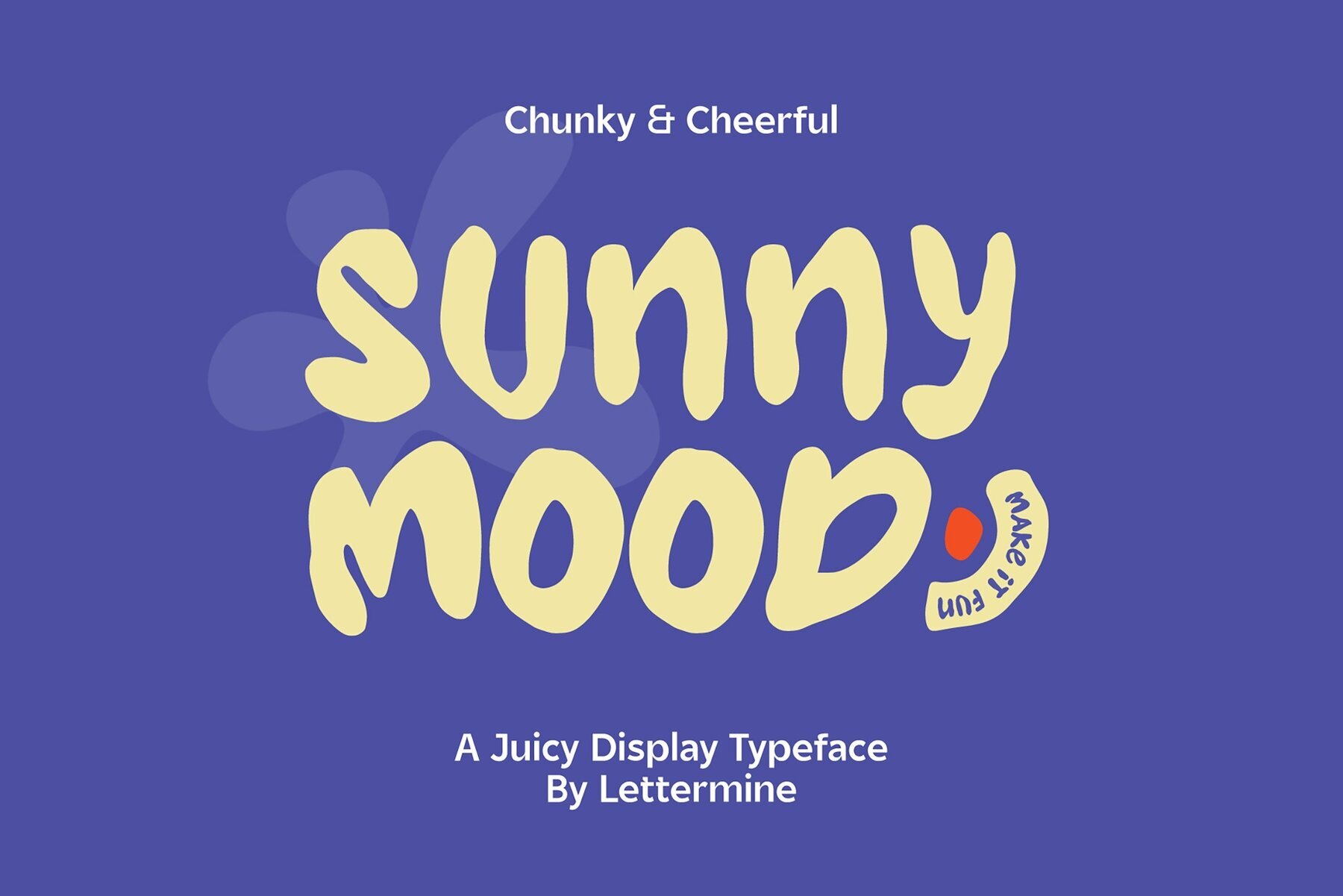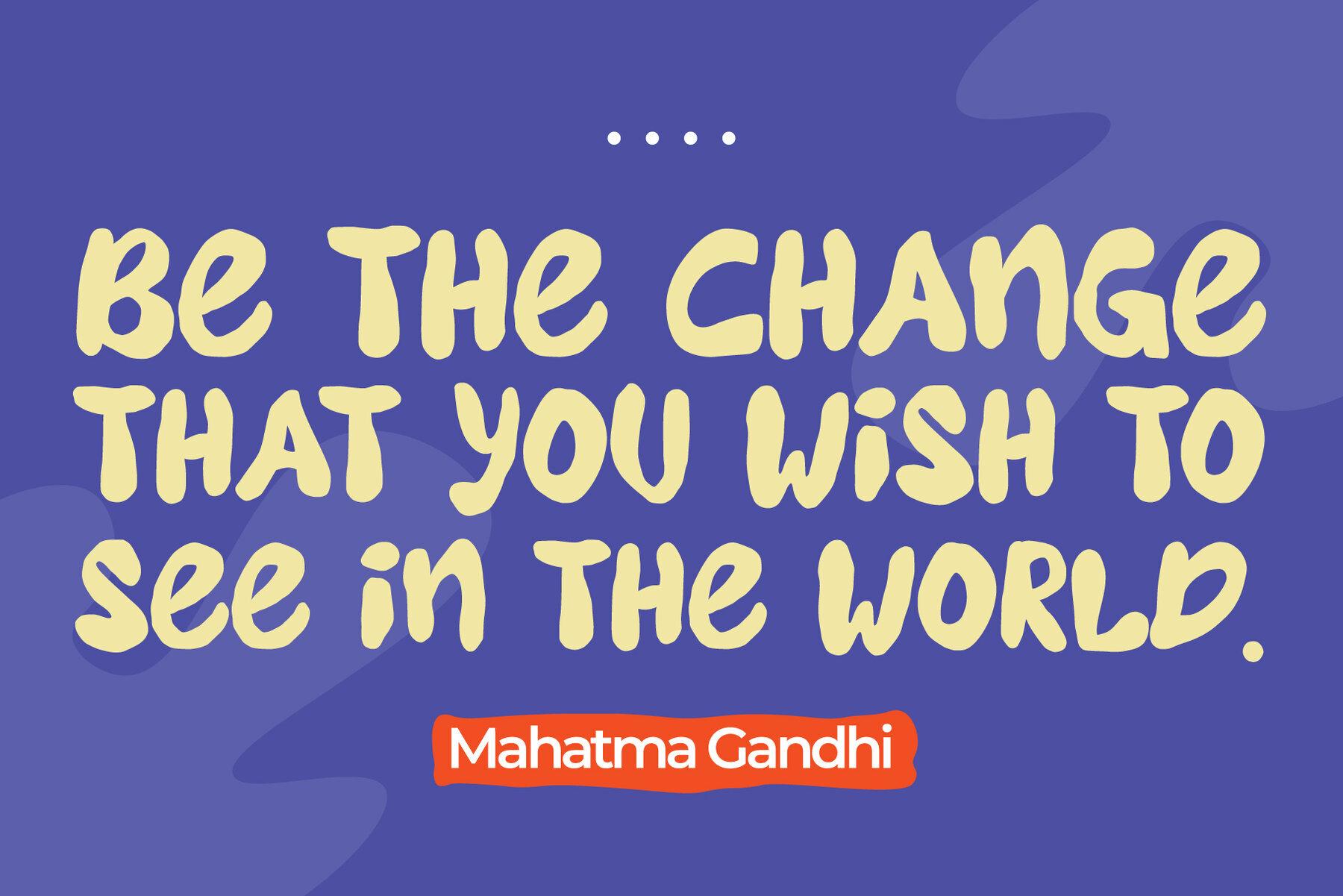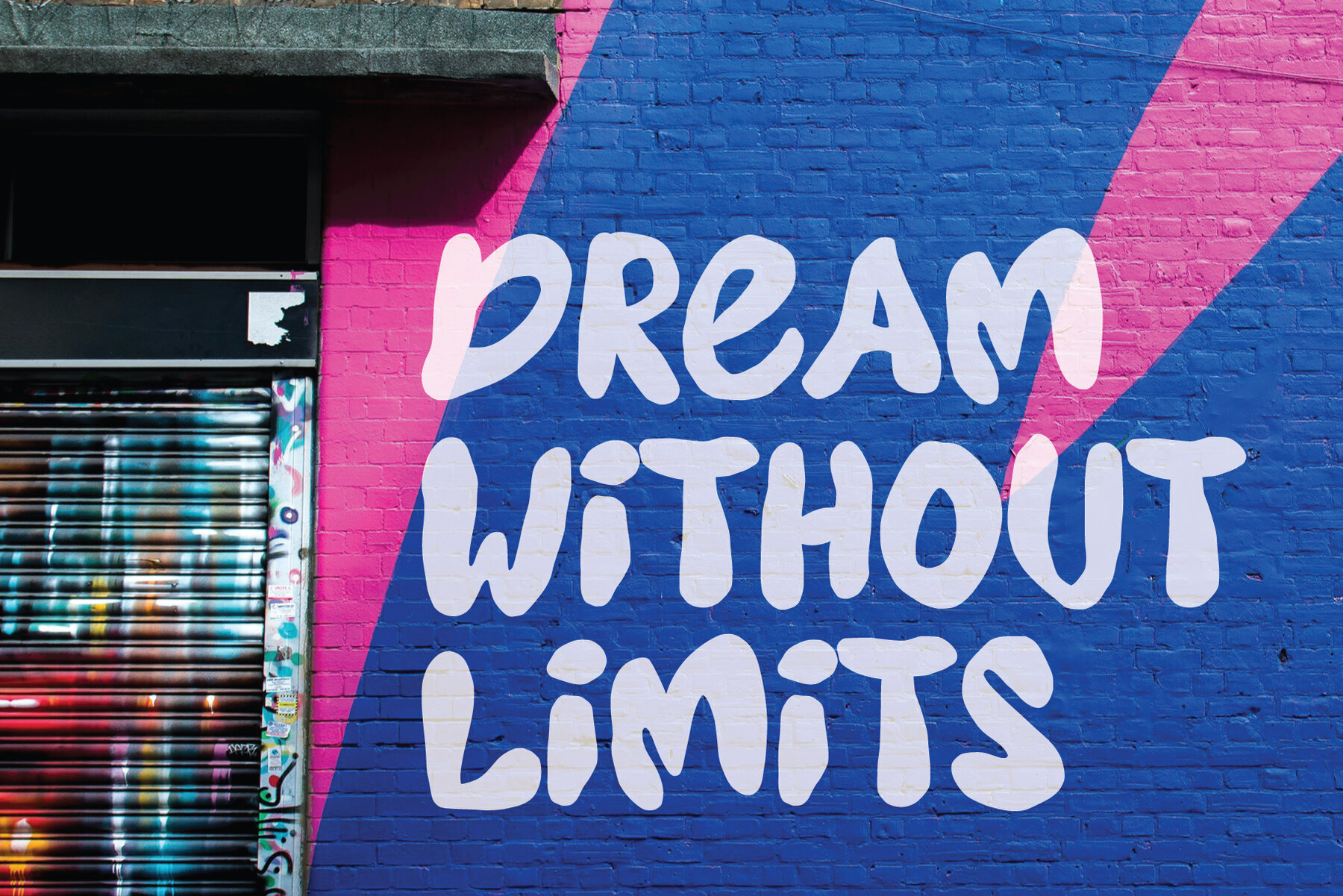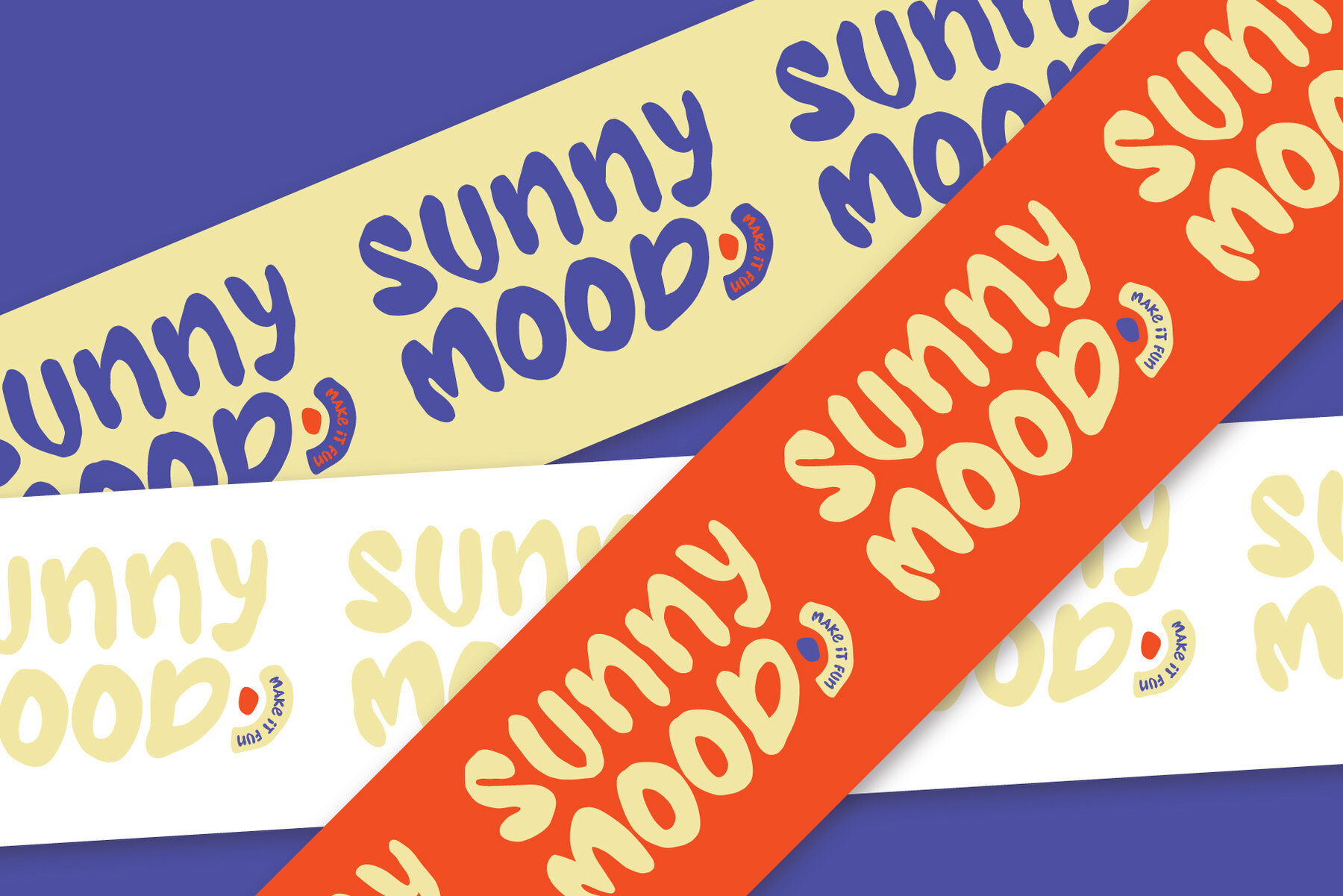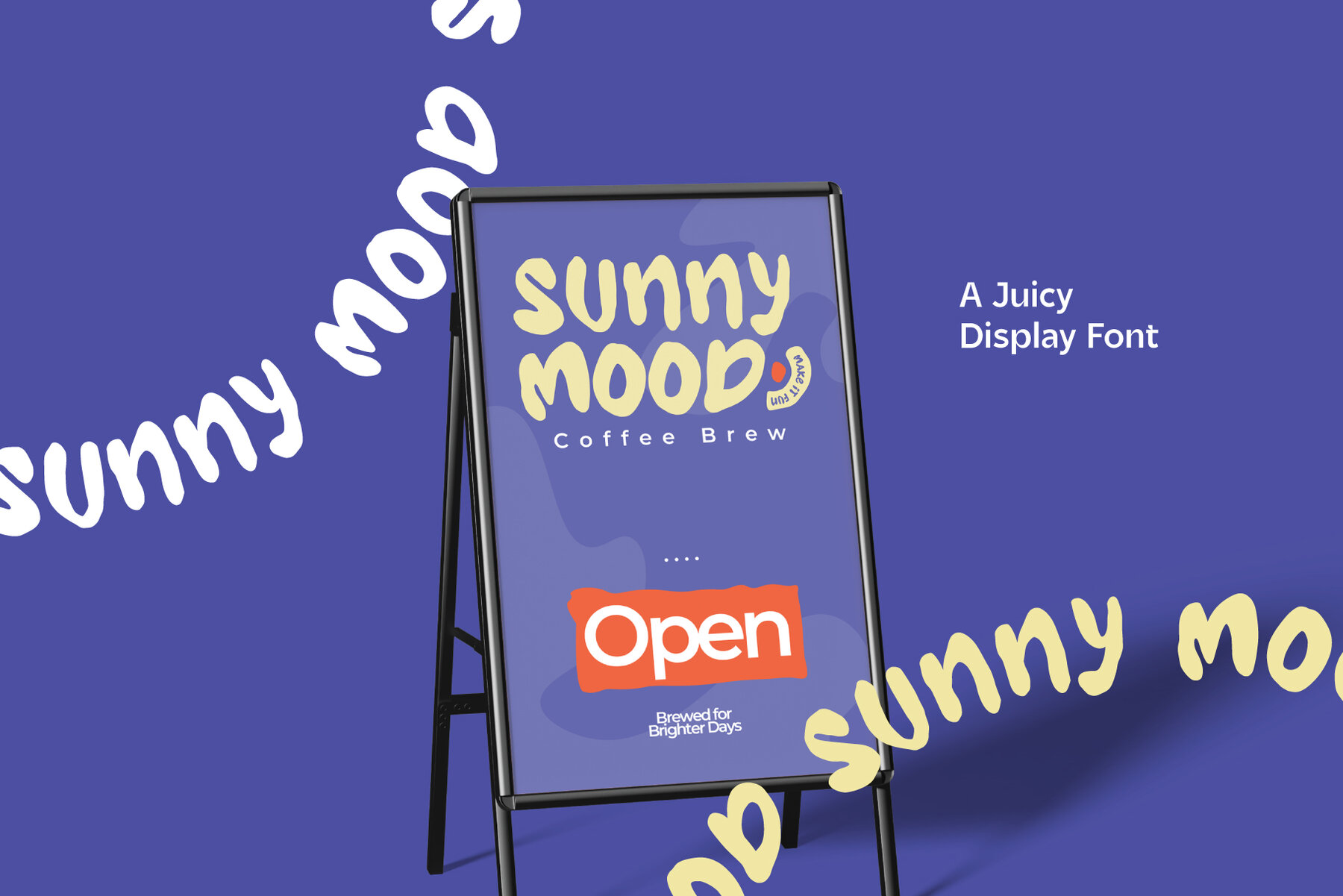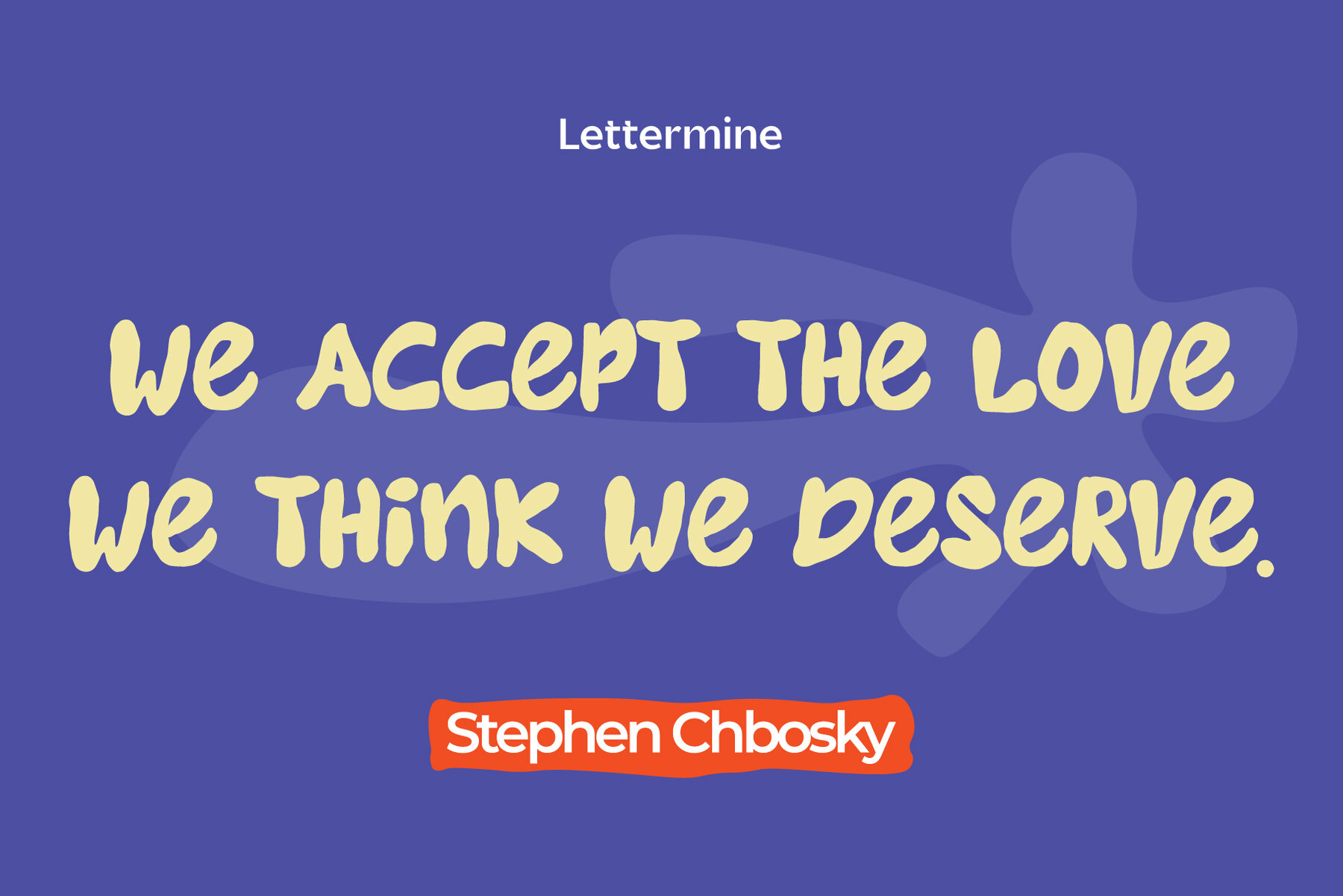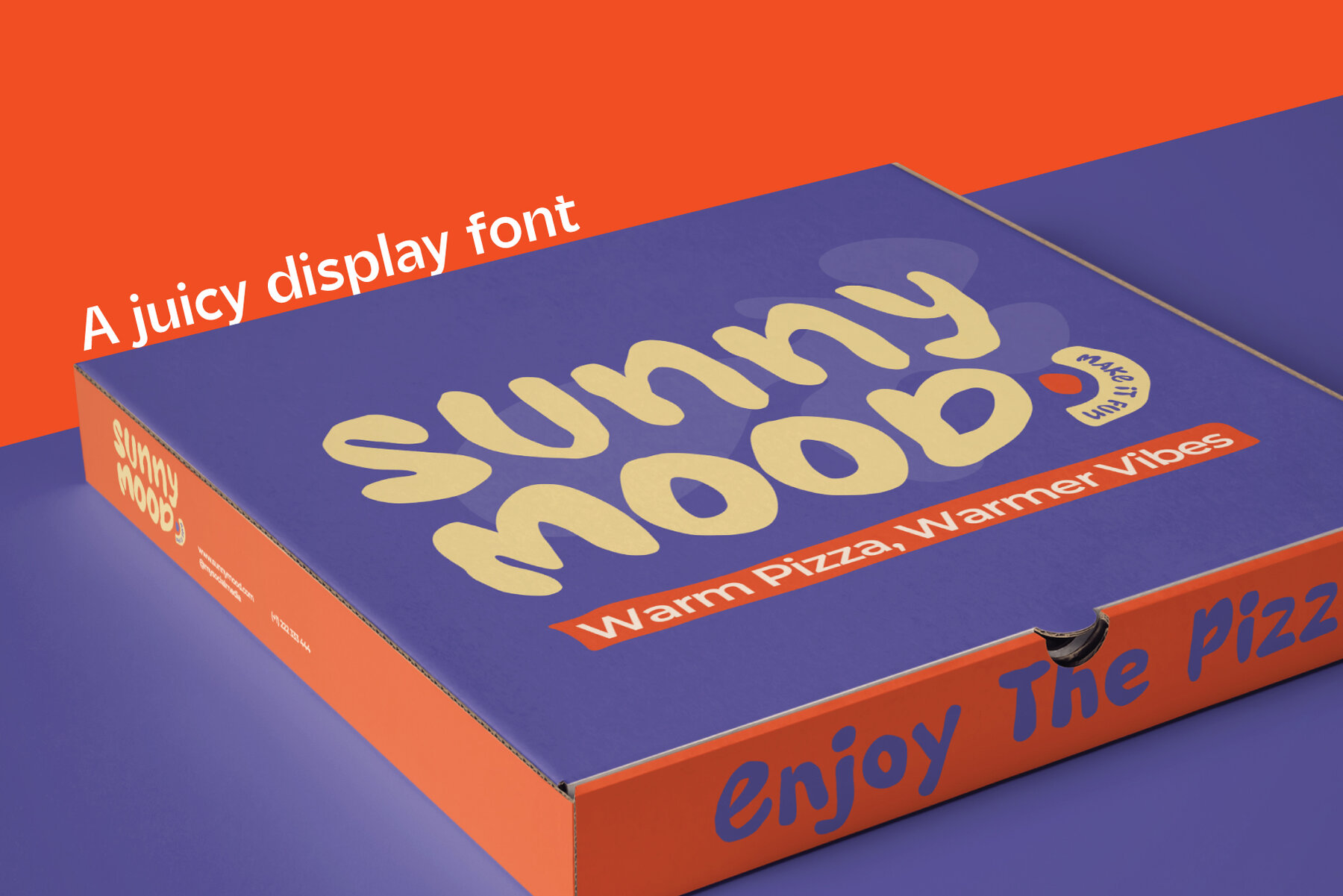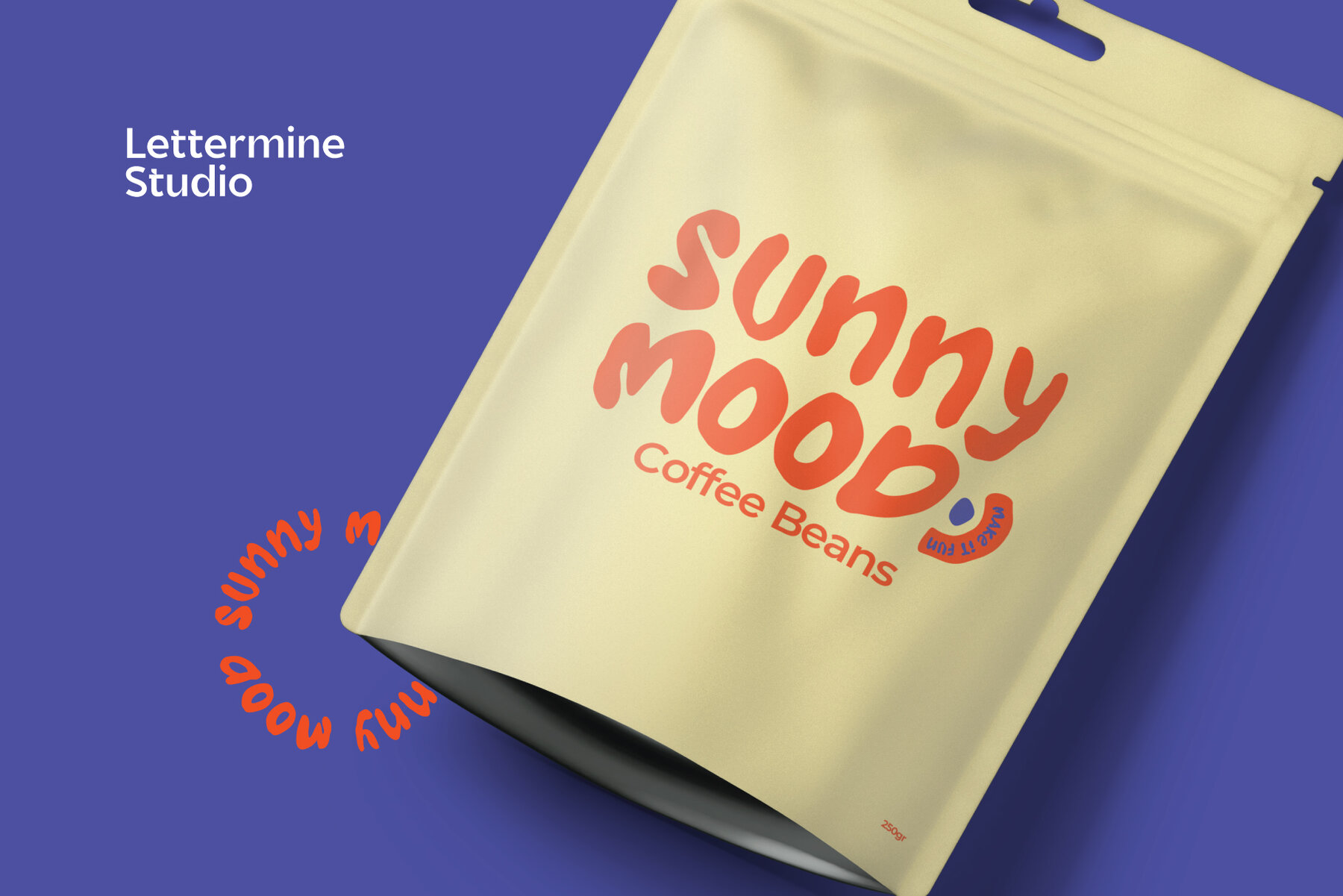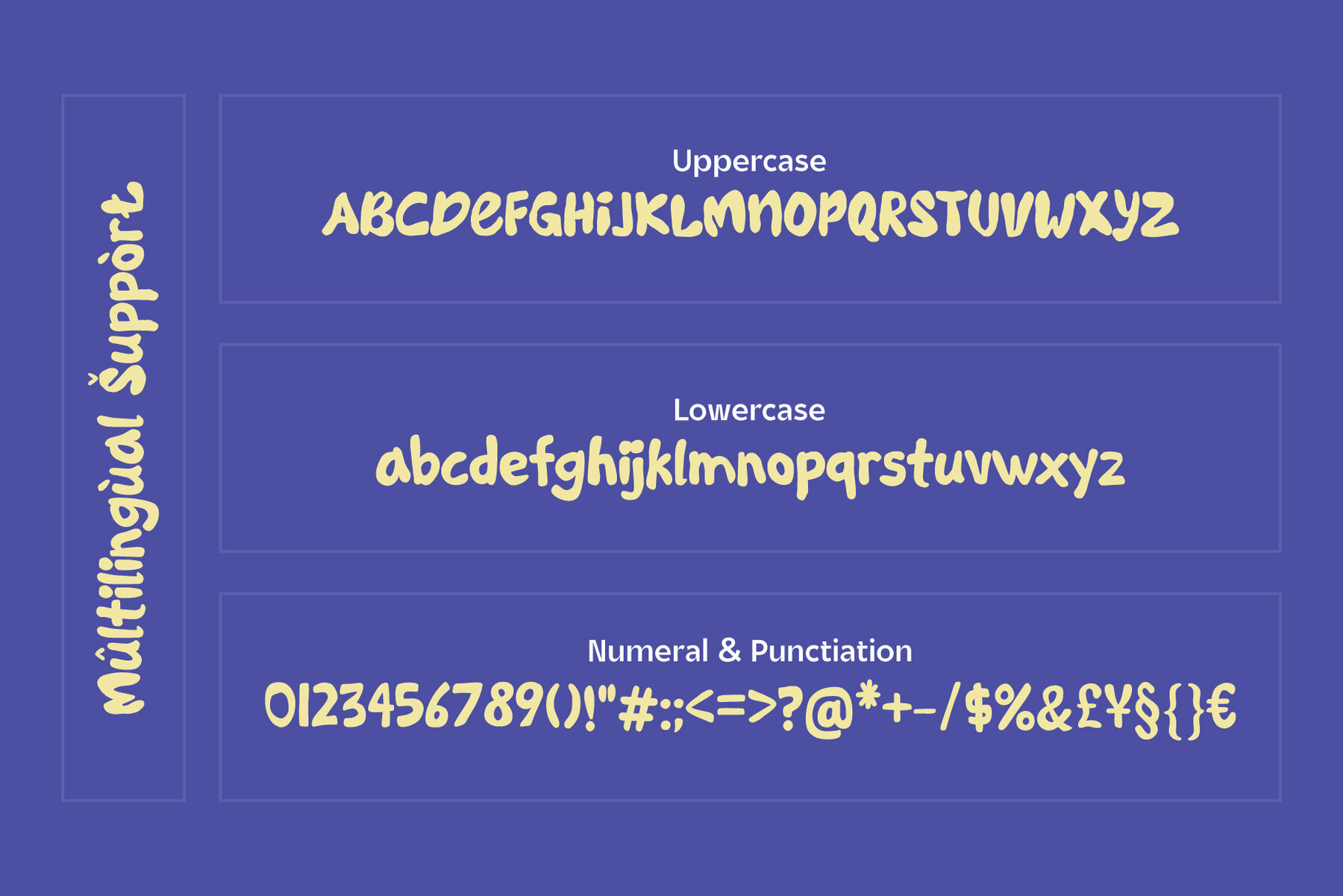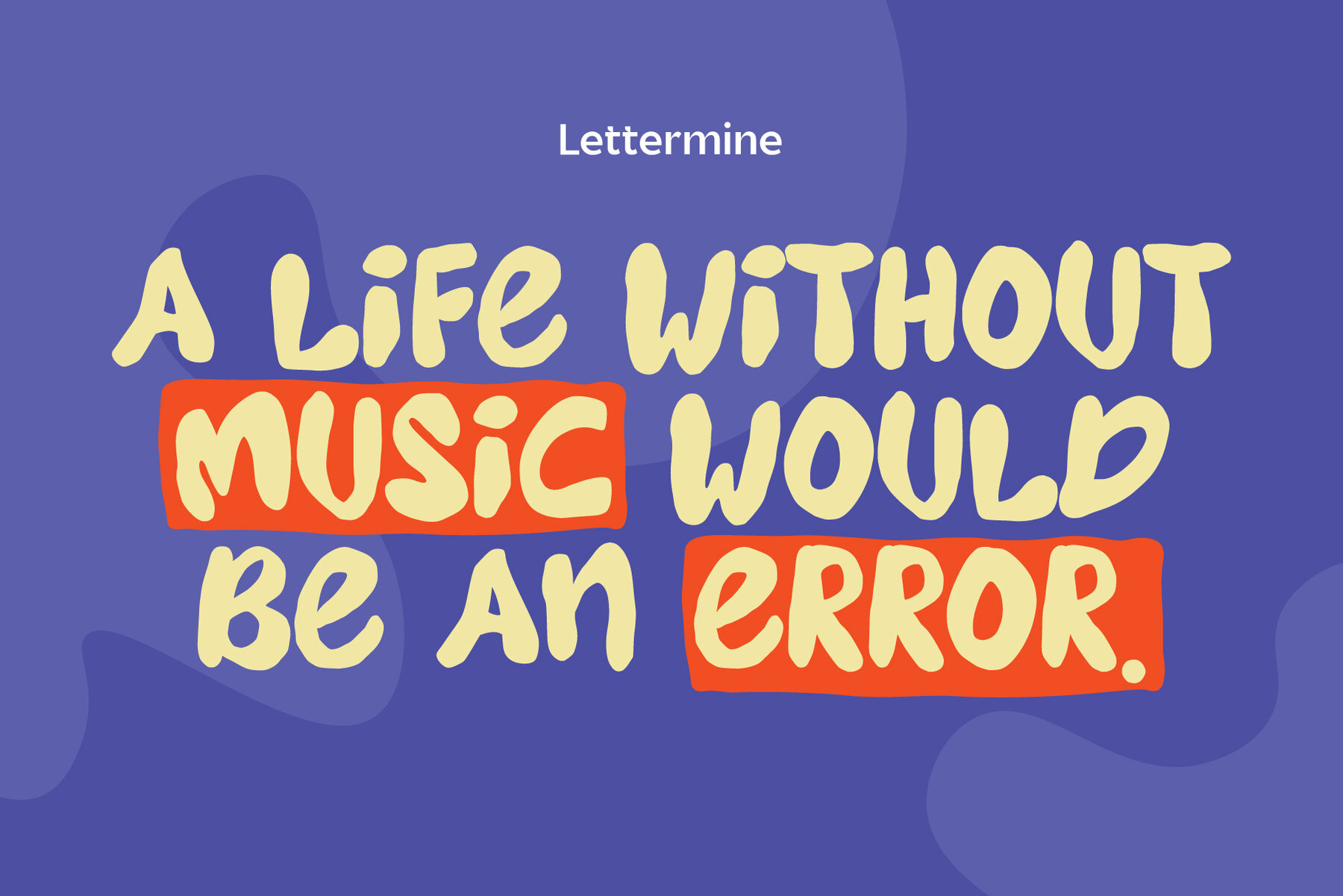
Sunny Mood Font
Sunny Mood
Sunny Mood is a vibrant and cheerful display font designed to add a splash of joy to all your creative projects. The hand-crafted, bold letterforms bring a playful energy, making it ideal for colorful posters, children's branding, sticker designs, fun quotes, and vivid digital visuals. With a smooth texture and an expressive shape, Sunny Mood is both captivating and easy to use. The font includes ligatures and alternates, offering creative flexibility to suit your design needs. Access all characters easily from any design software, thanks to its PUA encoding, without the need for additional tools. Please note that preview elements are for display purposes only and are not included with the purchase.Sunny Mood: Chunky Playful Display Font